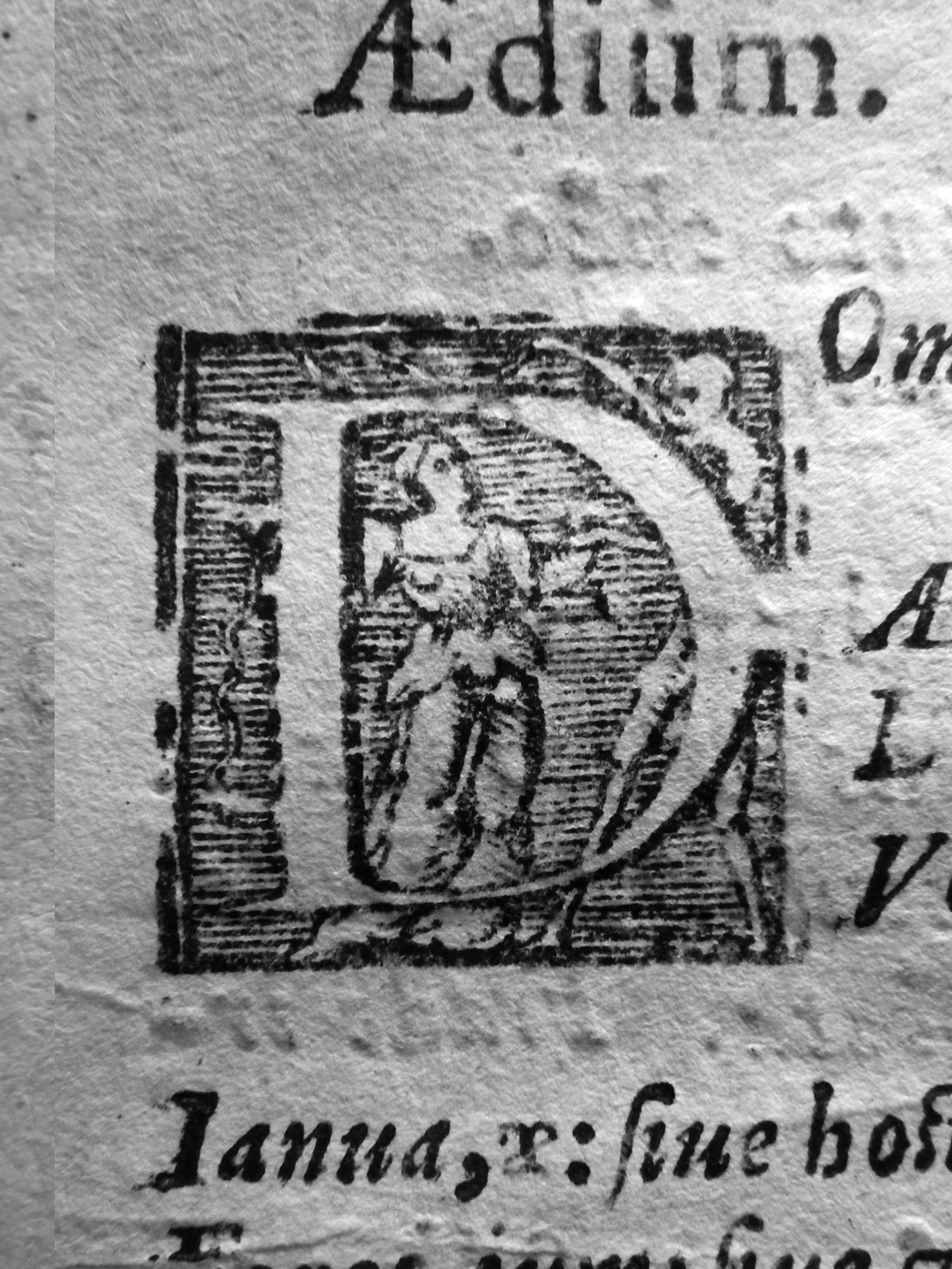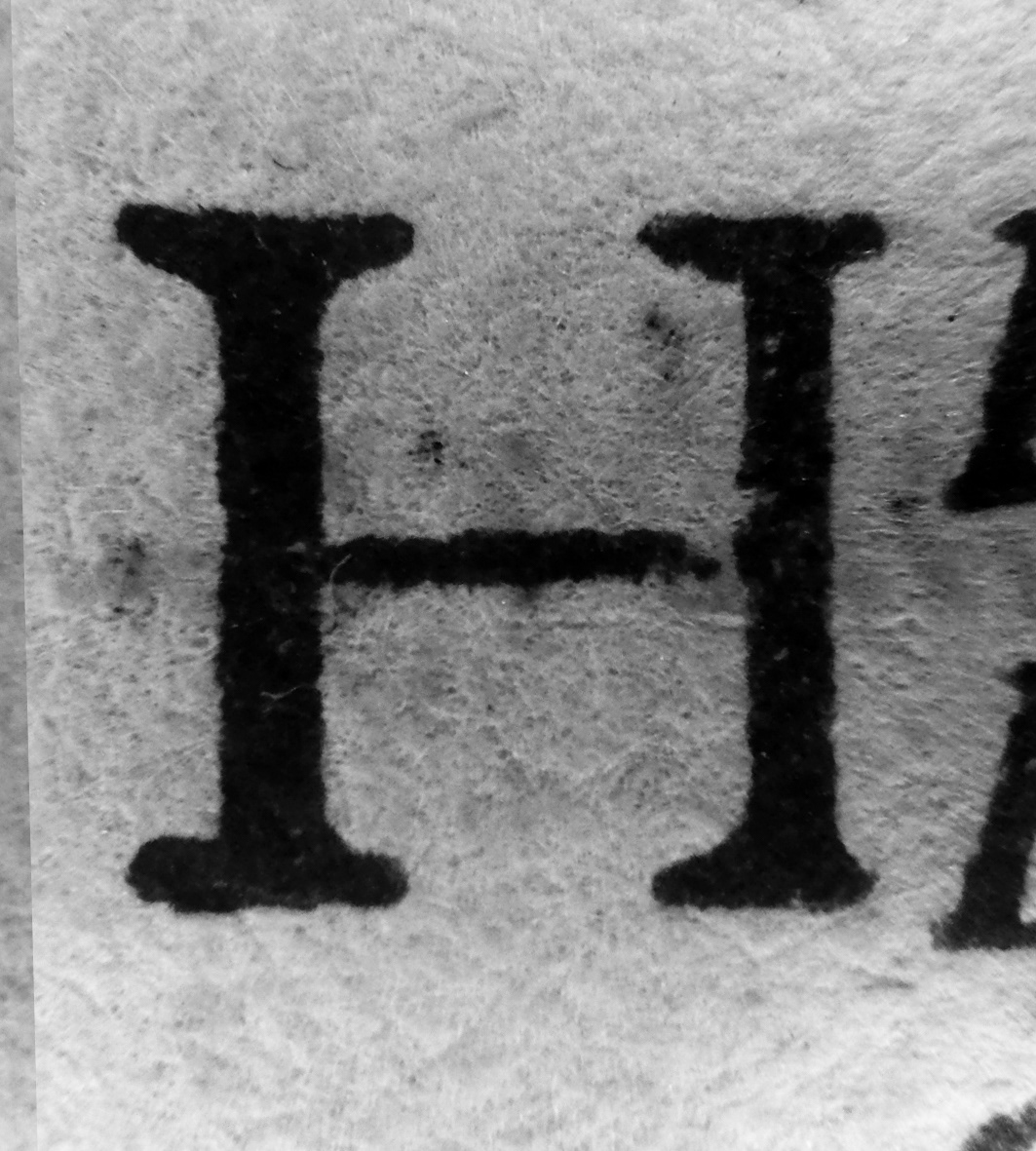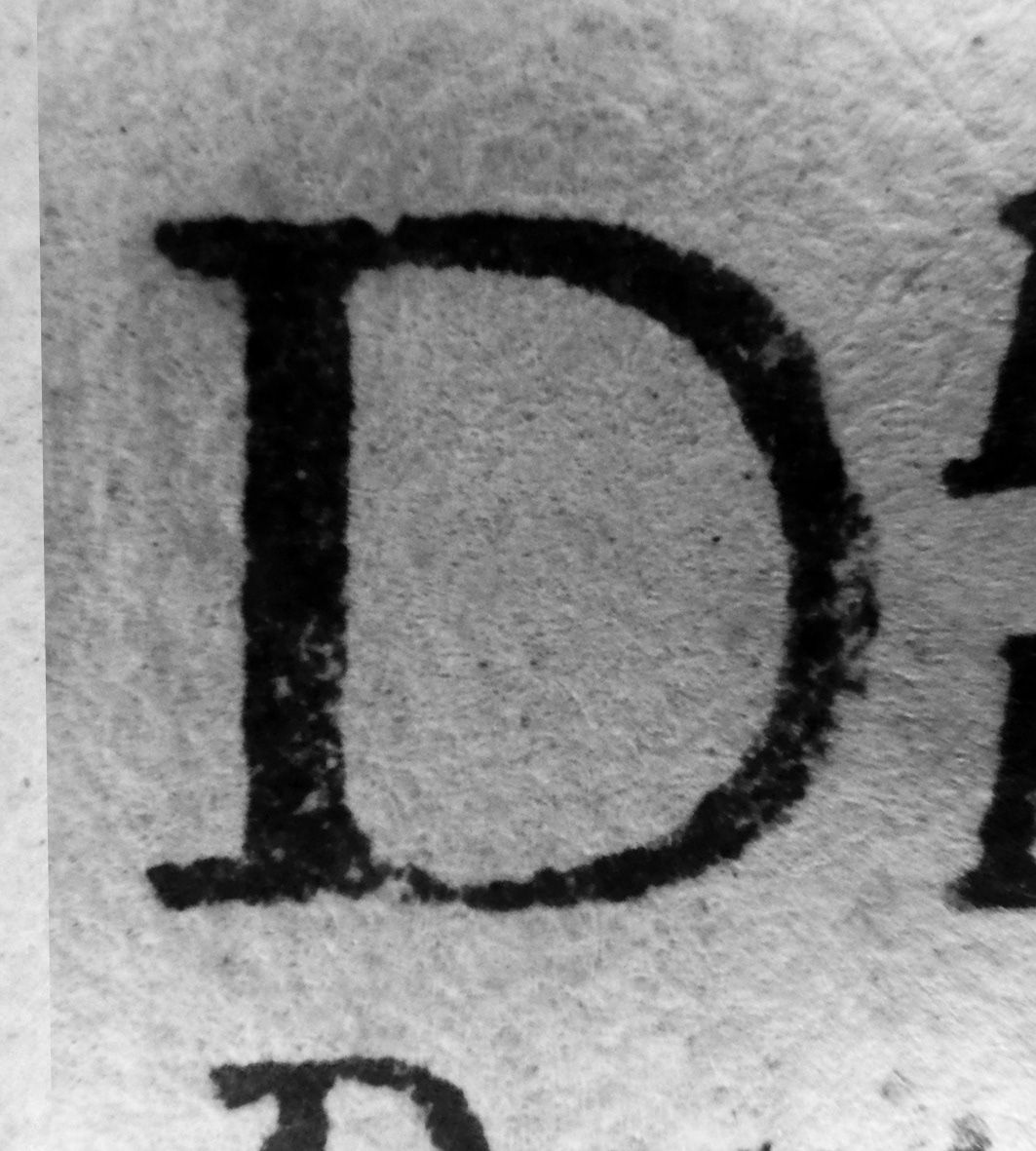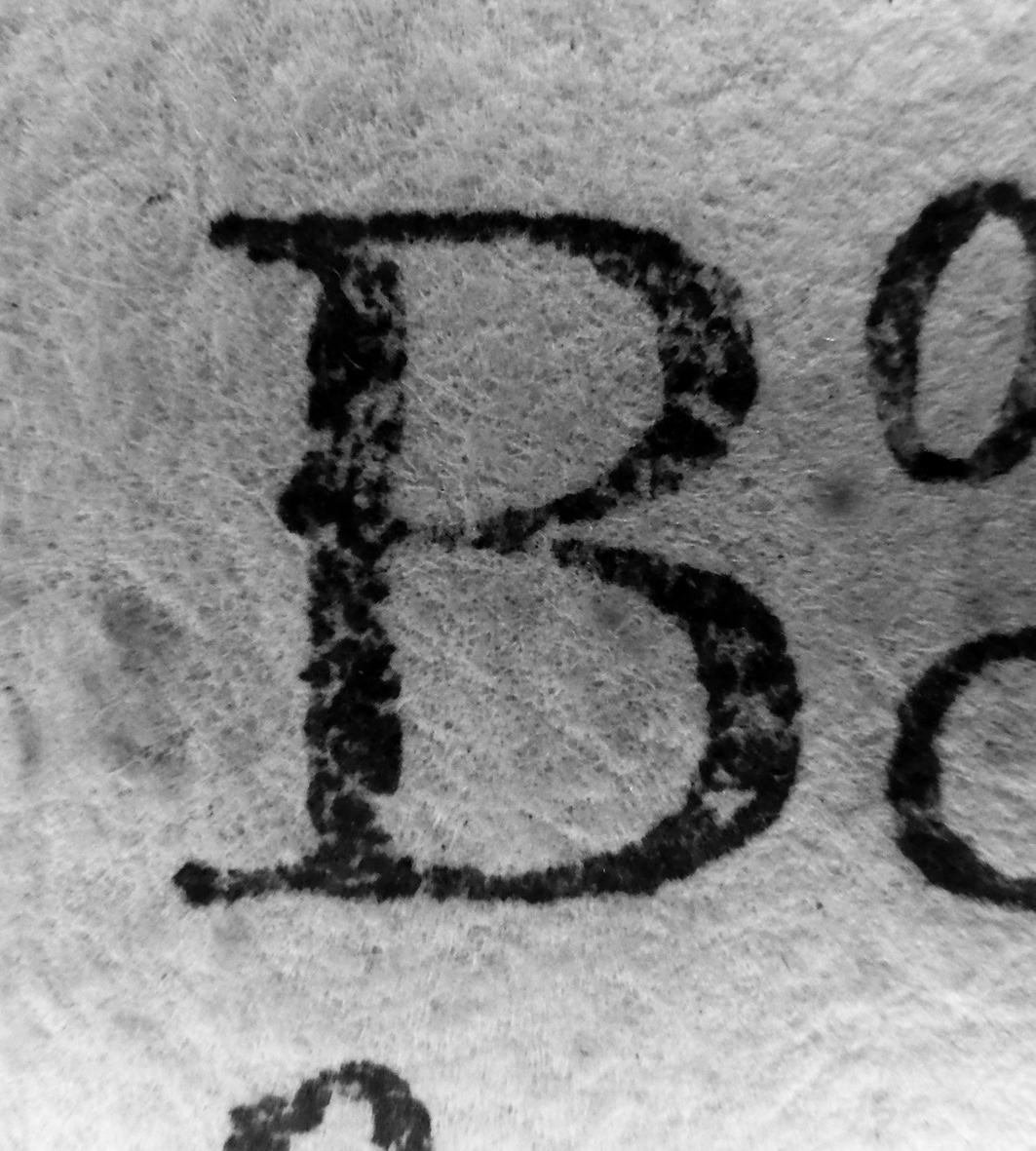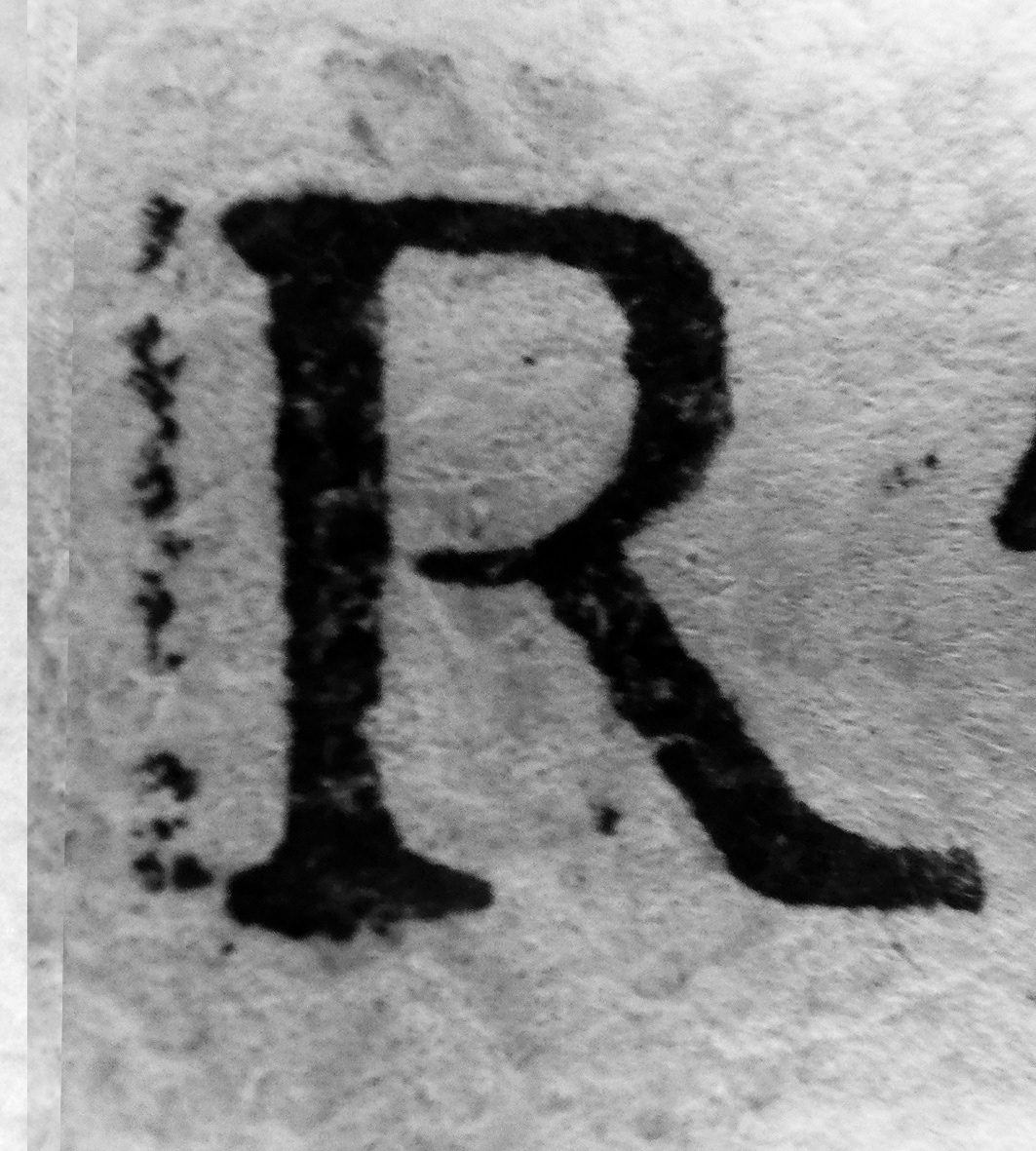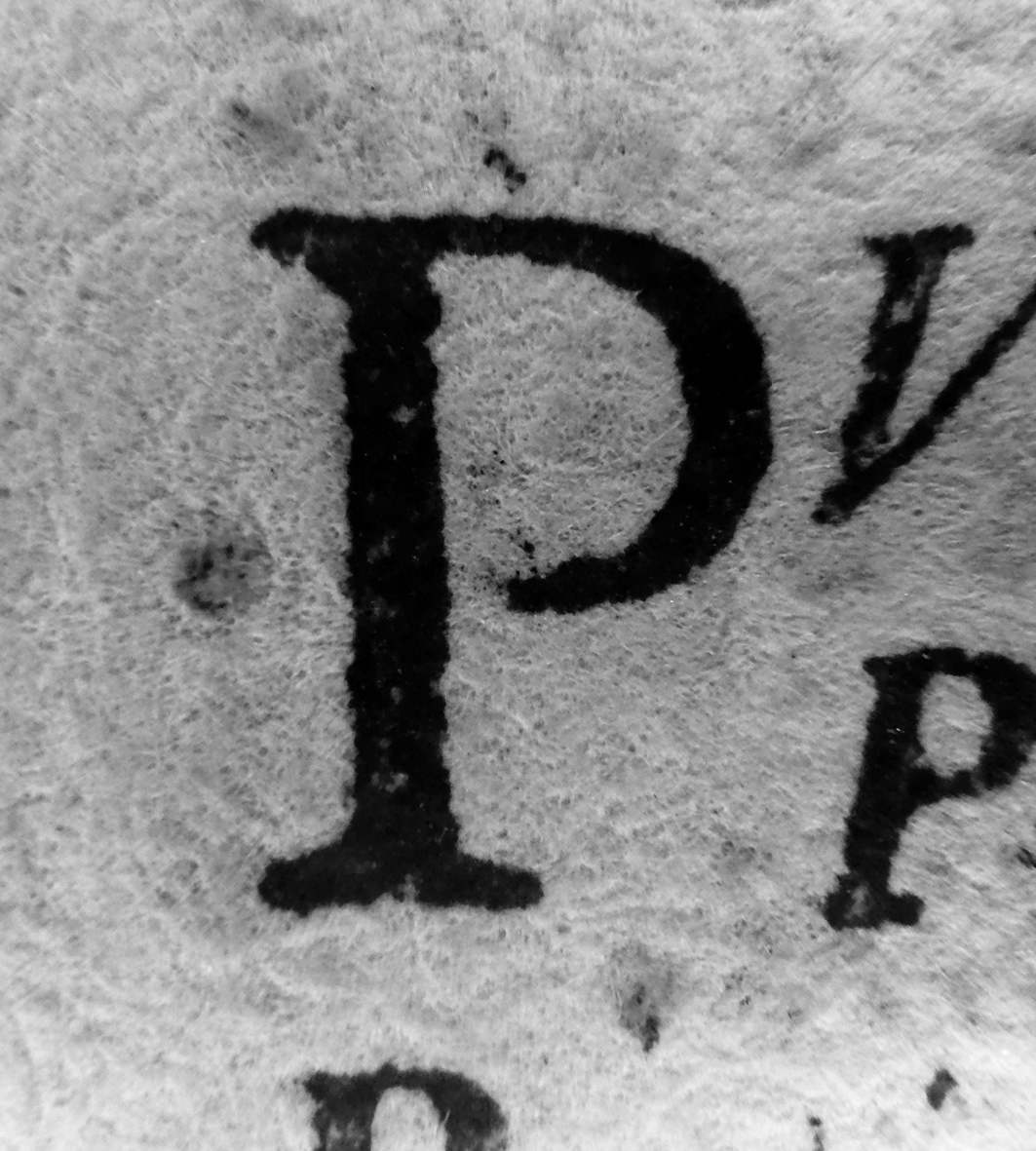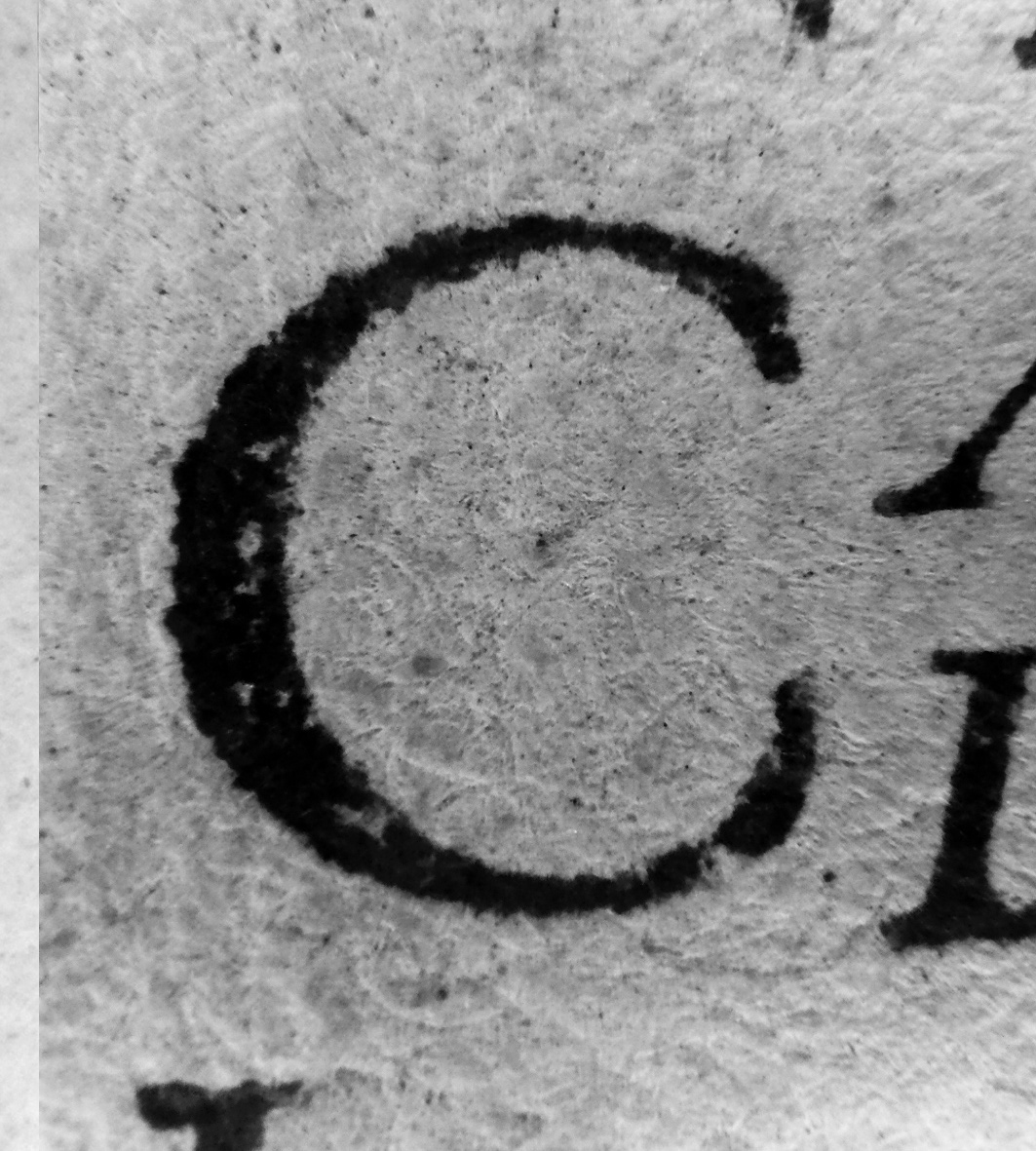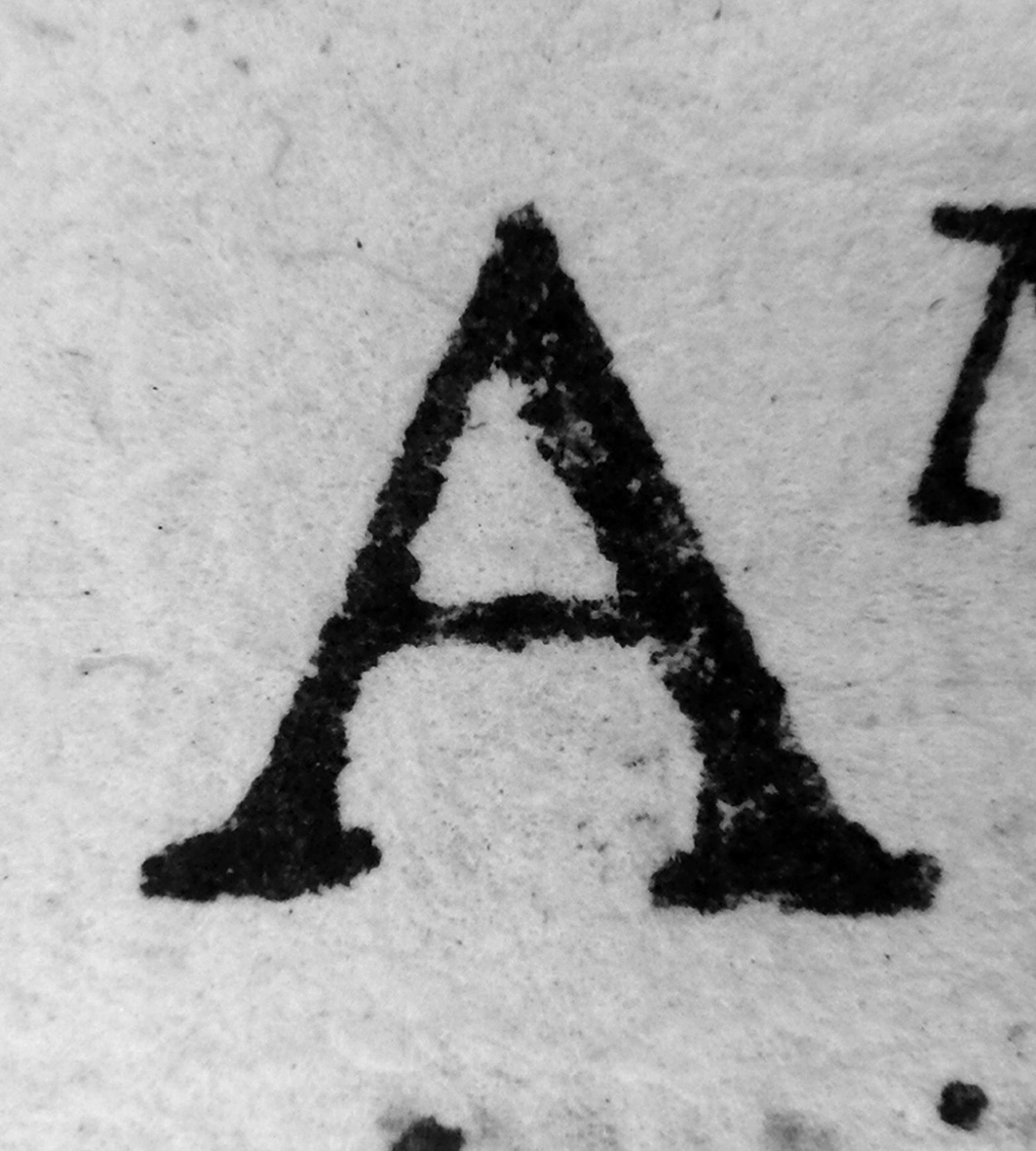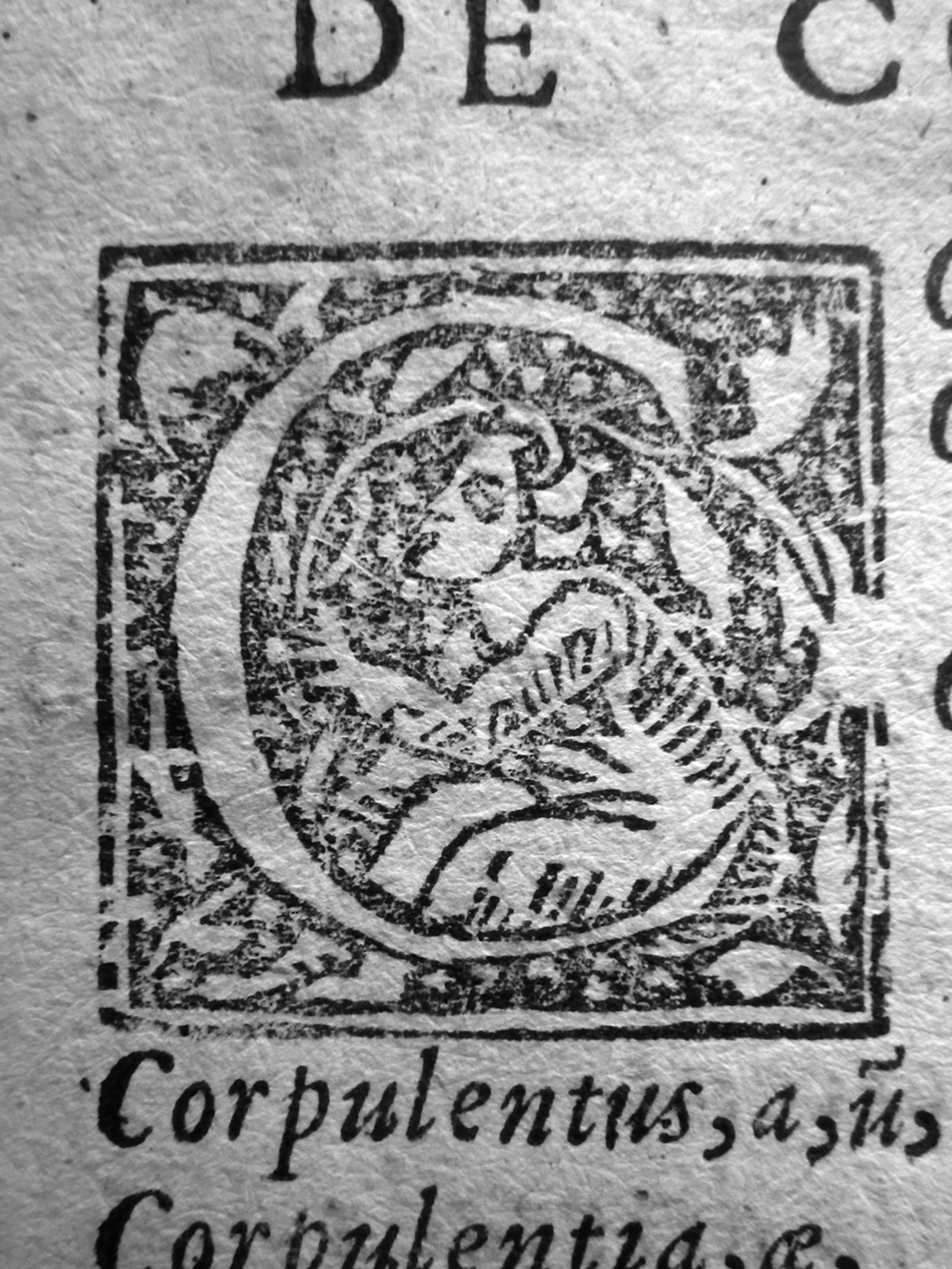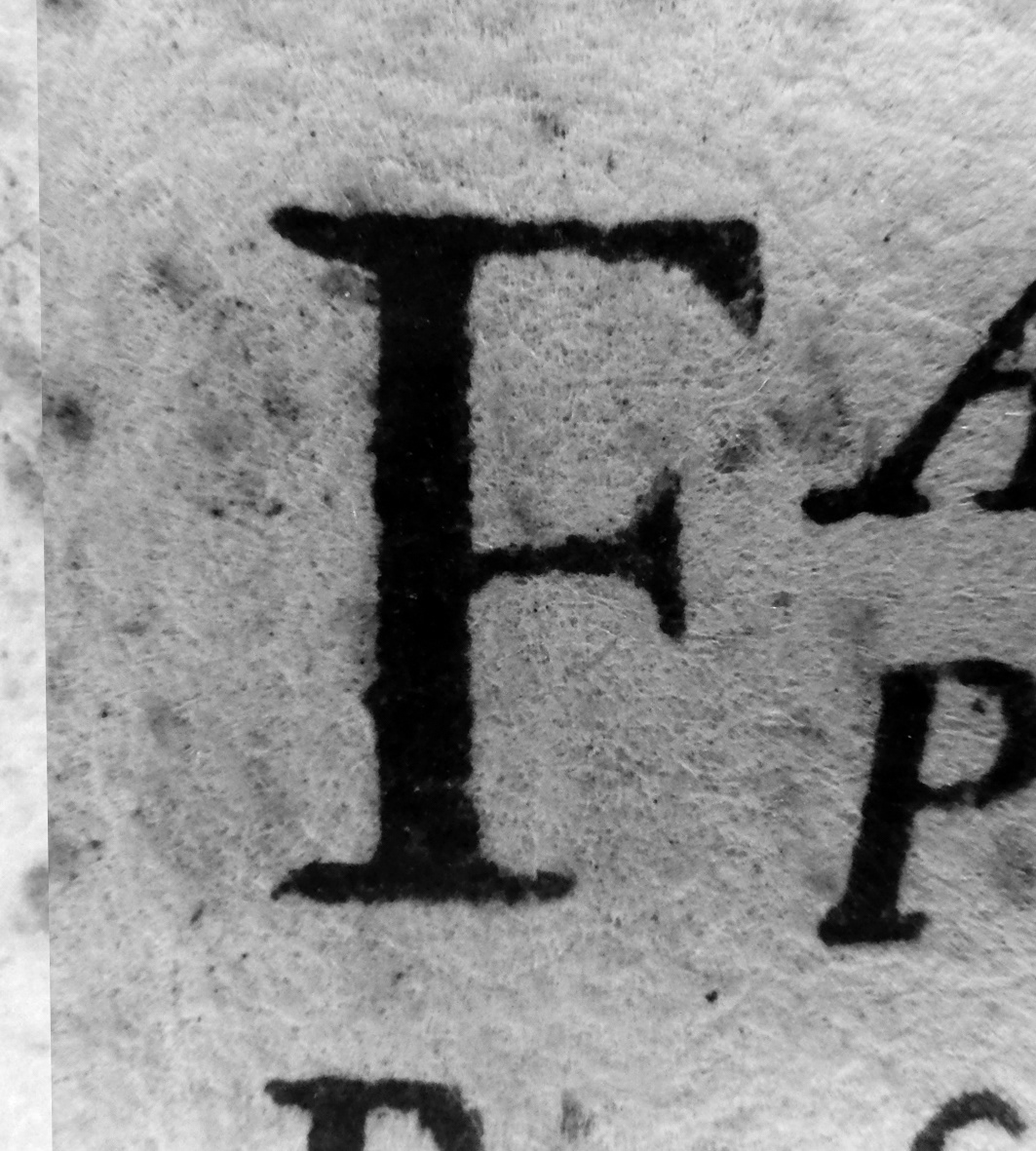
This re-edition of the Dictionarium juventuti studiose, printed more than thirty years later, is composed of 13 sets of alphabets, capitals and more, in a total of 329 images. There is not yet a digitised sample of this book but it is available at the Public Library of Porto.
Bibliographical description:
Author: Jerónimo Cardoso
Editor: not identified
Translator: non applicable
Corrector: not identified
Short Title: Dictionarivm Iuventuti Studiosae
Place of Print: Coimbra
Printer/s: João de Barreira
Publisher: not identified
Date of Print: 1587
List of Contents: Frontispiece 1r / Authorization 1v / Index 2r / De corpore 3r /De Partibus 46v / De temporibus 60r
Colophon: Ex officina Ioannis Barrerij Architypographi Vniuersitatis
Paper: Very Thin - head, fore and foot hedge in red
Page Size: 8º - cut to 78x137 mm (very small margins)
Column/text Area: 64x130 mm
Printing Area: 32 lines of text
Quires: 6 - 8 folios - last quire has one blank sheet
Signatures: A - F numbered on rectos
Guide Letters: non existent
Woodcuts: Yes - seal on frontispiece + 3 illustrated capitulars
Copperplates: non existant
Illustrations: non existant
Printing Color: Black
Catchwords: Yes
Marginalia: non existant
Interlinear Glosses: non existant
Language/s: Latin + Portuguese
Type/s: Roman + Italic
Indentation: 7 mm
Editions: 1551 / 1562 / 1587
Assorted Signs
Illustrated Capitals
Italic Alphabet 10pt
Italic Alphabet 12pt
Italic Alphabet 14pt
Italic Alphabet 16pt
Roman Alphabet 8pt
Roman Alphabet 10pt
Roman Alphabet 14pt
Roman Alphabet 16pt
Roman Capitals 18pt
Roman Capitals 24pt
Roman Majuscules 8pt